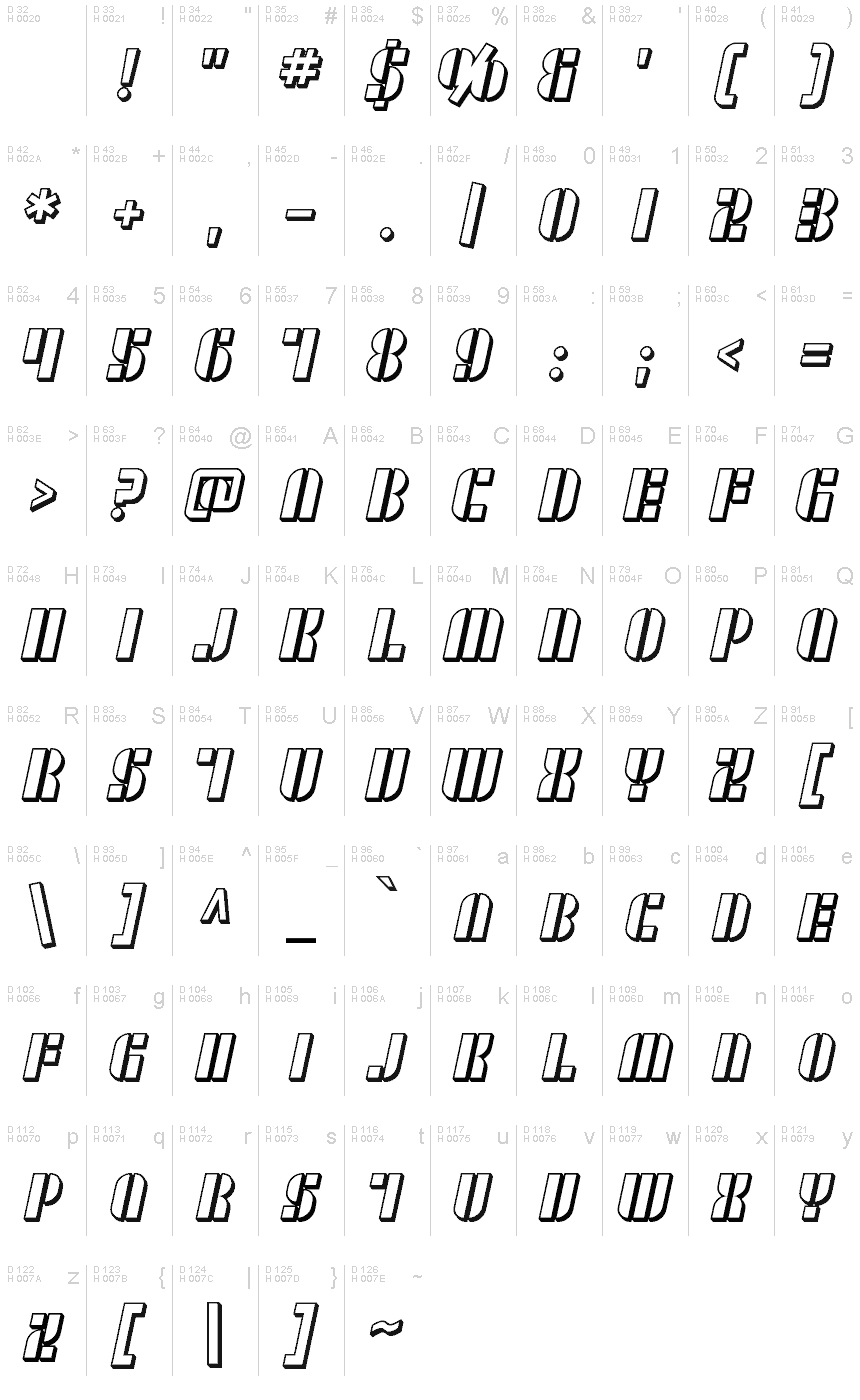
SF RetroSplice SC Shaded
SF RetroSplice SC Shaded is a bold statement in the realm of typography, crafted with precision by ShyFonts Type Foundry. This font belongs to the SF RetroSplice family and stands out with its condensed width, offering a sleek and space-efficient design. Its futuristic style is characterized by an innovative mix of sharp angles and geometric forms, presenting an aesthetic that evokes a sense of advanced technology and forward-thinking.
The shaded detail adds depth to the characters, enhancing their three-dimensional appearance and making them pop. This display font's bold weight ensures high visibility and impact, perfect for capturing attention in headlines, posters, branding, or any project that demands a strong visual presence.
SF RetroSplice SC Shaded is not just another typeface; it's a carefully constructed font that encapsulates modernity while paying homage to retro design cues. Its potential applications are vast—from digital media to print advertising—making it an invaluable asset for designers aiming to infuse their creations with a touch of the future wrapped in the nostalgia of the past.
The shaded detail adds depth to the characters, enhancing their three-dimensional appearance and making them pop. This display font's bold weight ensures high visibility and impact, perfect for capturing attention in headlines, posters, branding, or any project that demands a strong visual presence.
SF RetroSplice SC Shaded is not just another typeface; it's a carefully constructed font that encapsulates modernity while paying homage to retro design cues. Its potential applications are vast—from digital media to print advertising—making it an invaluable asset for designers aiming to infuse their creations with a touch of the future wrapped in the nostalgia of the past.